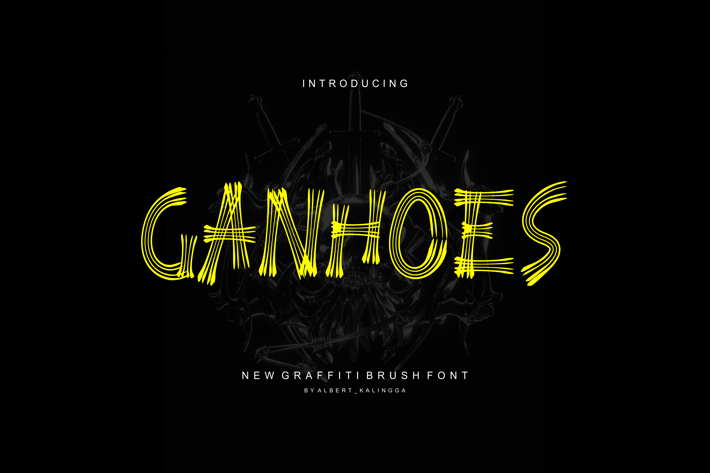
Ganhoes Font
albert_kalingga
Introducing our new product Ganhoes Font - Modern Font
Ganhoes Font - Modern Font is a bold and authentic display font. The font is suitable for any branding project like logo, esport, and many more. outstanding in a wide range of contexts.